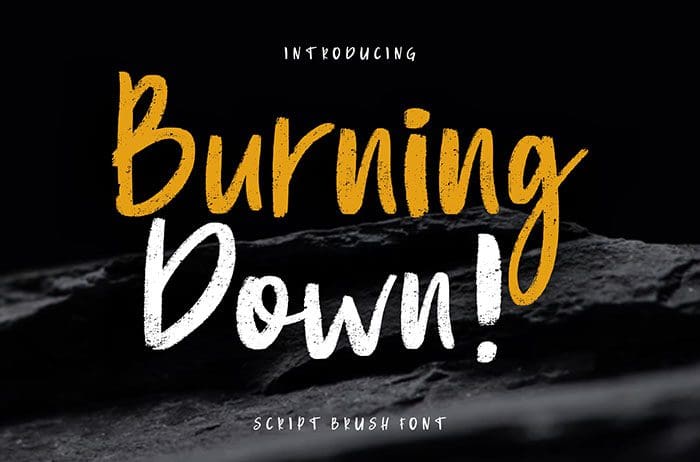
Burning Down is a Brush Font and strong bold looks. Burning Down is perfect for branding projects, product packaging, product designs, and more. Thanks to Creatype Studio for sharing this font! Take a look at this portfolio for more of his stunning fonts.